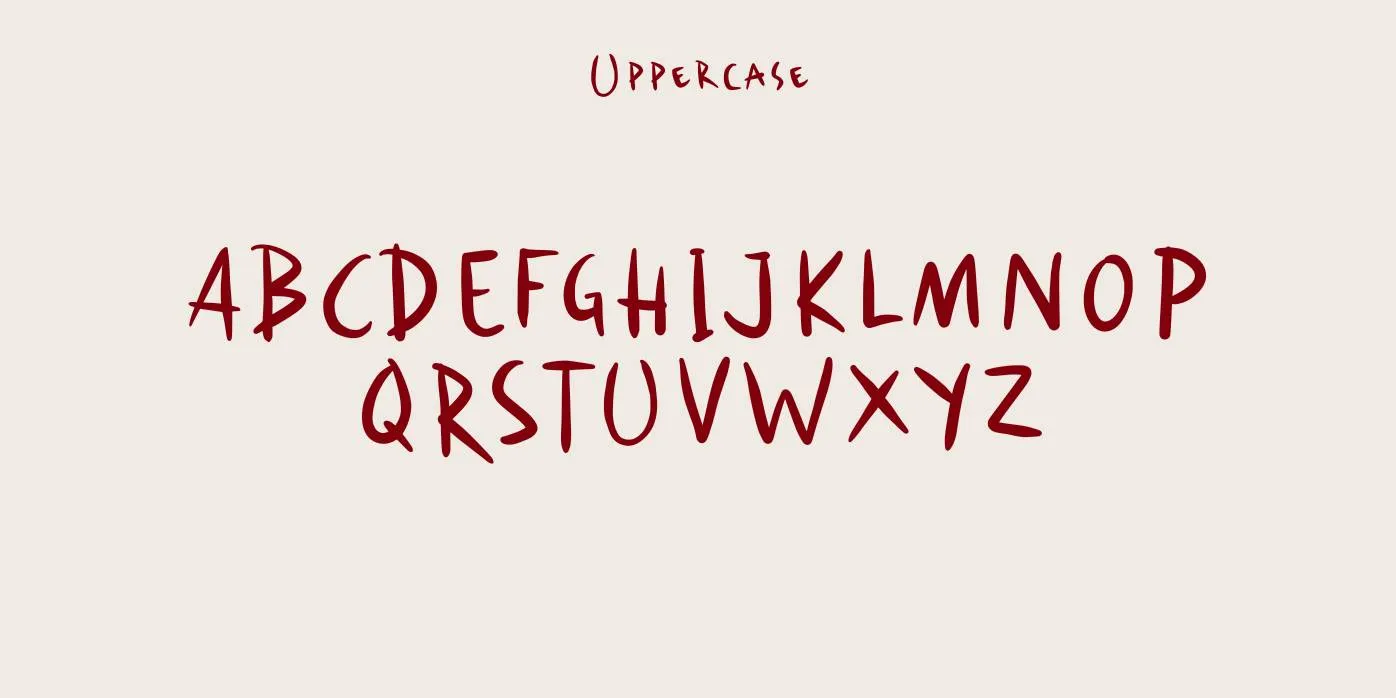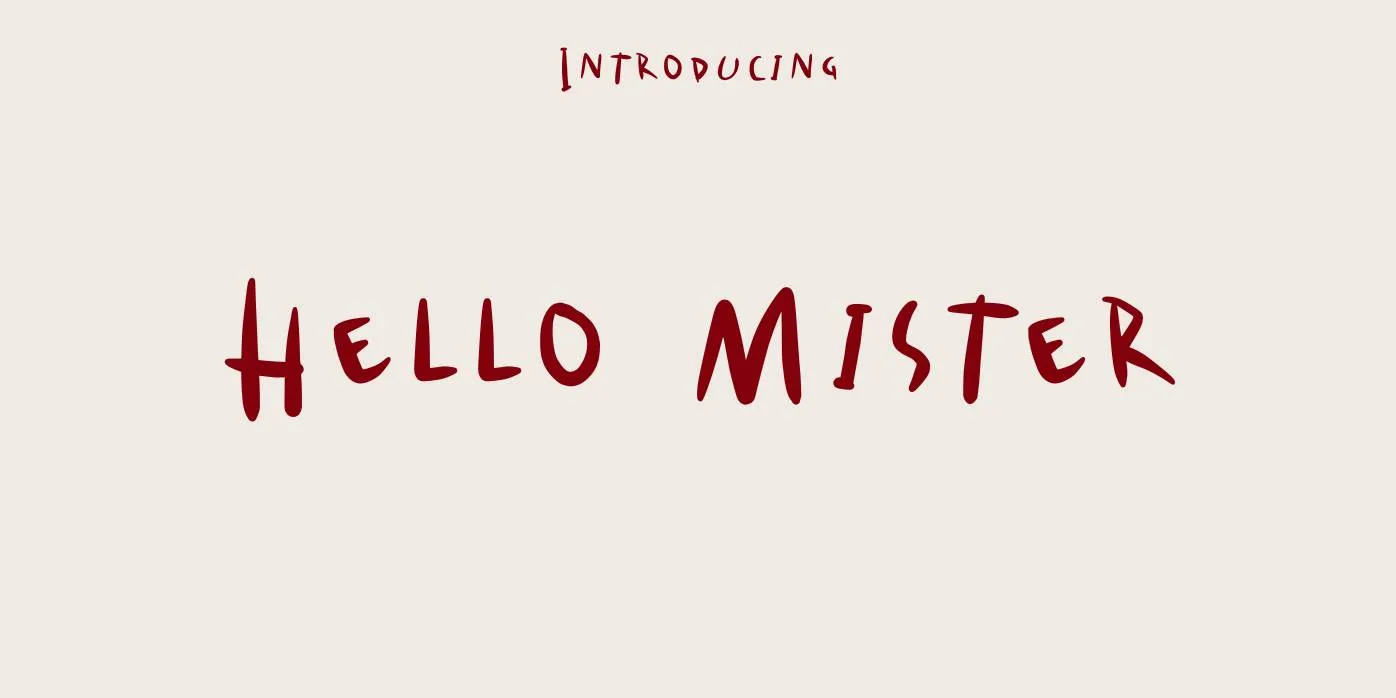
Hello Mister Font
Hello Mister font is a very famous typeface all around the world. This unique handwritten font was designed by Nuryanto Dwi and manufactured by Imaginatype. This elegant typeface has different types of features that contain 272 characters and 250 glyphs. The weight of this font is Regular.
The look of this typeface is very similar to hand writing and it has a proportionally spaced characetrs. It has rough-style characters that you can use in both personal and commercial projects. An online generator tool is also helpful to generate this font in which you can copy and paste your text to convert its simple look into this font within seconds. You can also use it for pairing with other fonts like my bestie font to give your projects a more attractive look.
So you can use it to make attractive poster designs. This font is also good for designs product designs and packaging.  You can use it to print T-shirts and mugs. To make or edit designs in Adobe Photoshop you can use this font as well. You can also use this font for making designs in Canva.
This font can be used to design many projects as well as for product packing. It gives a very unique look to your projects.